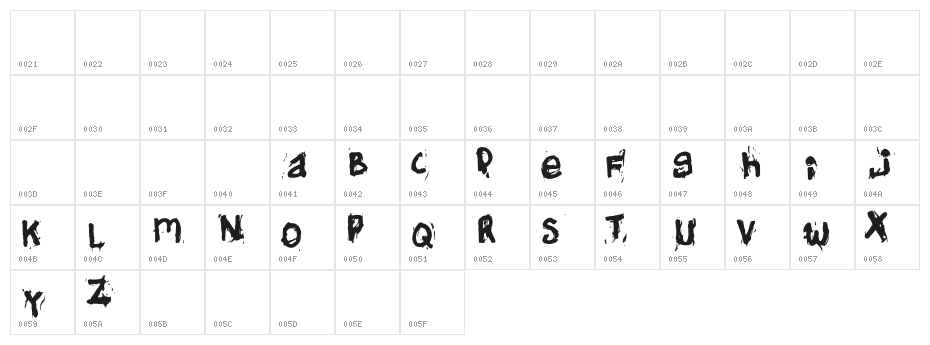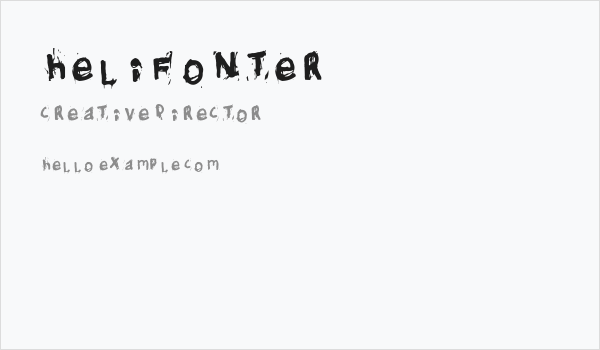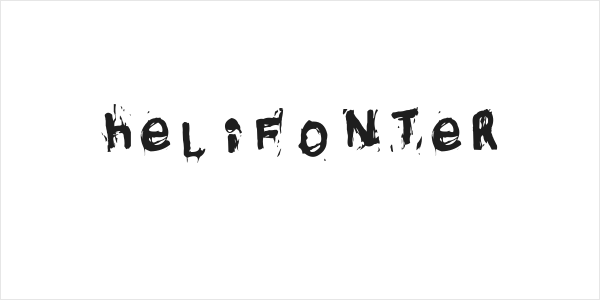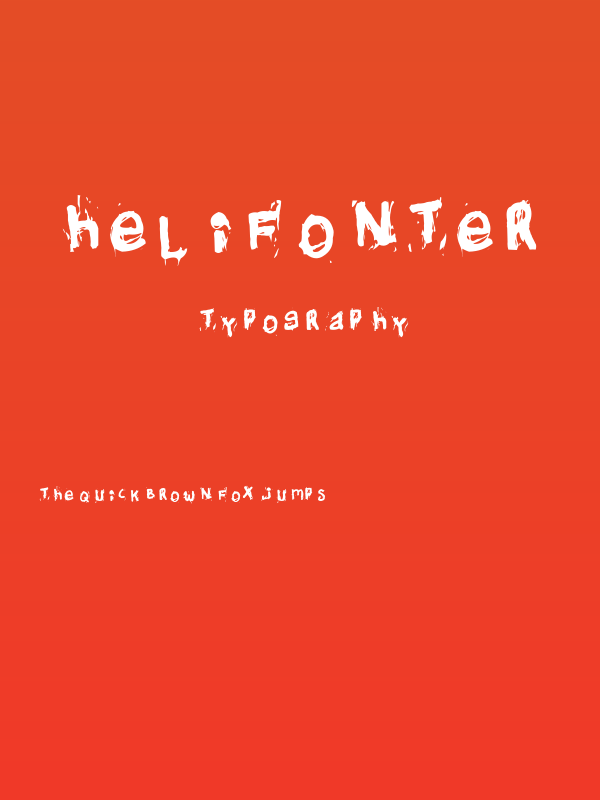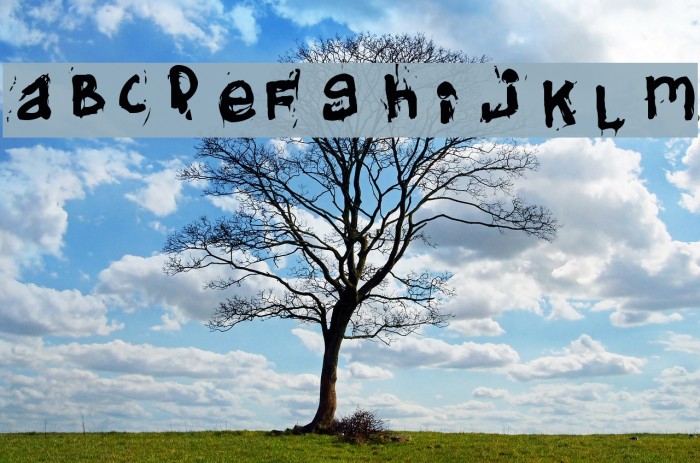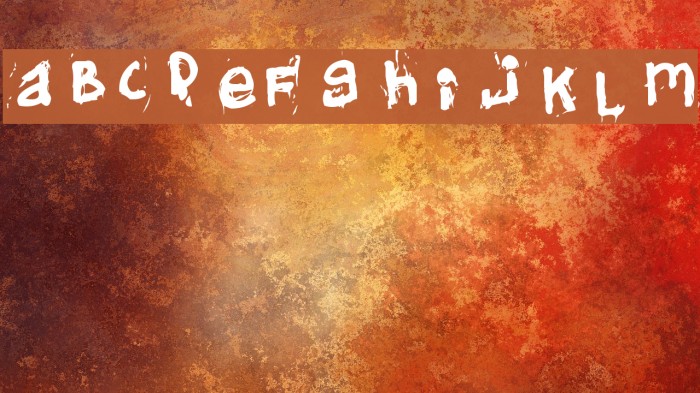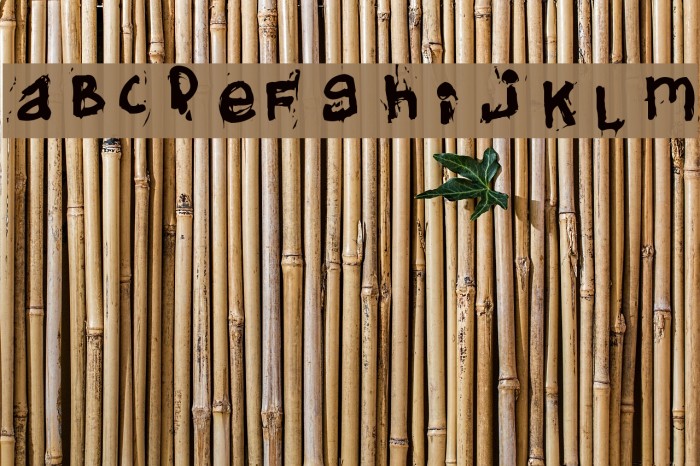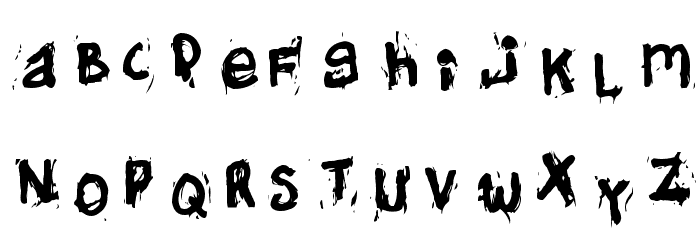
Helifonter Font
Helifonter Description
This font features a distressed and grungy appearance, with each character appearing as if it has been splattered with ink or paint. The irregular edges and varying stroke thicknesses give it a raw, edgy feel. The uppercase and lowercase letters maintain a consistent style, with a playful yet chaotic aesthetic. The numbers and special characters follow the same design, adding to the overall cohesive look. This font is ideal for projects that require a bold statement or an artistic touch.
| Overall Style | Grunge, Artistic |
| Proposed Projects | Album covers, street art posters, edgy branding materials, and creative event invitations. |